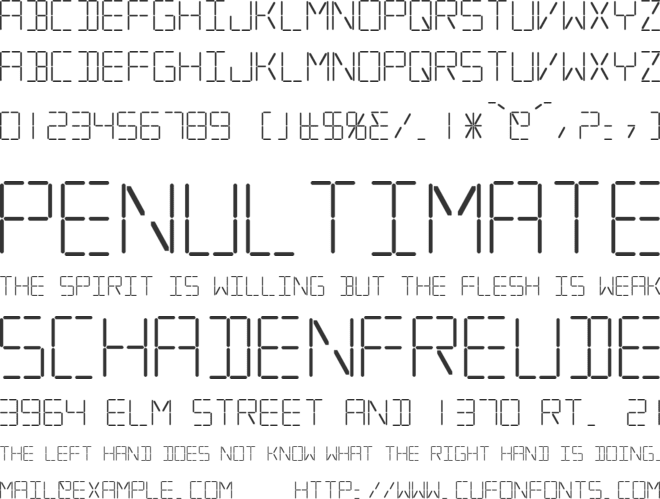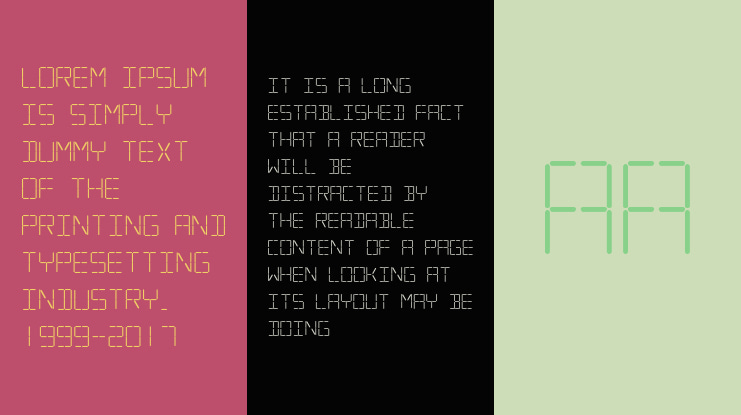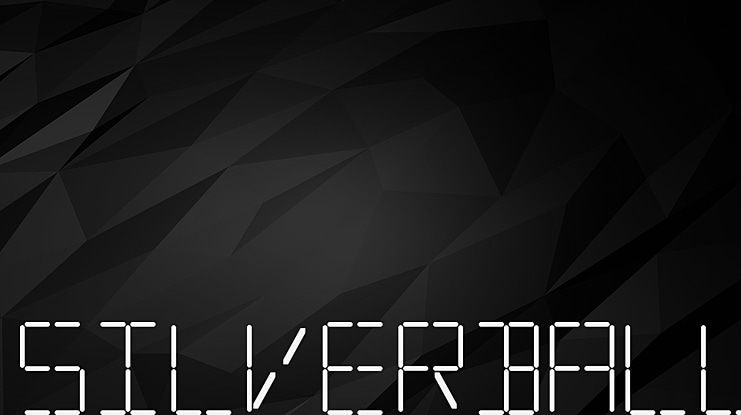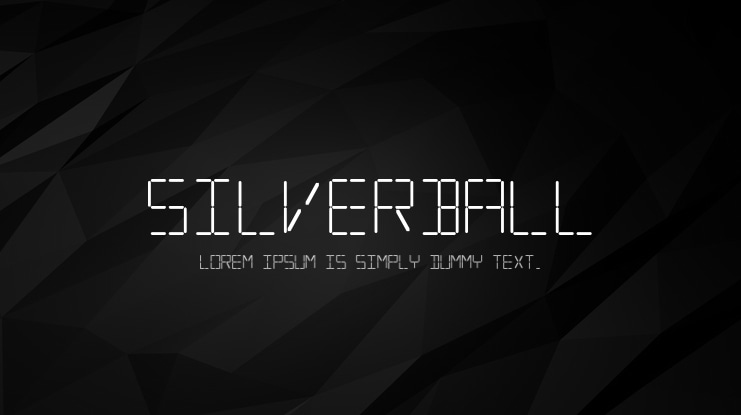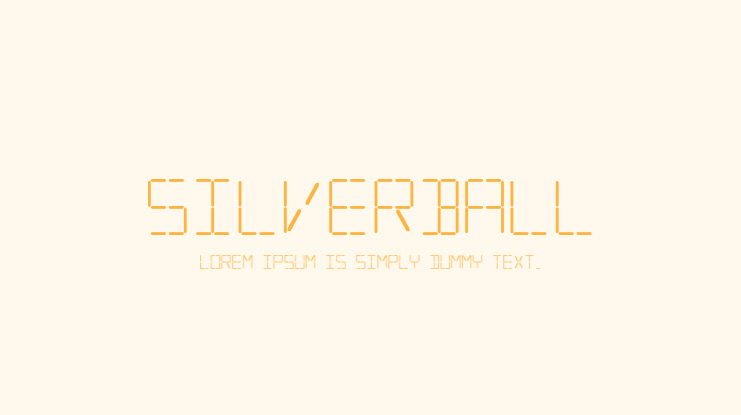
Silverball Font Family
Neale Davidson
This font is based on the LCD text used in many late 1980s and 1990s arcade pinball games. It includes the international accent expansions, the Euro, as well as an oblique and bold version of the font.